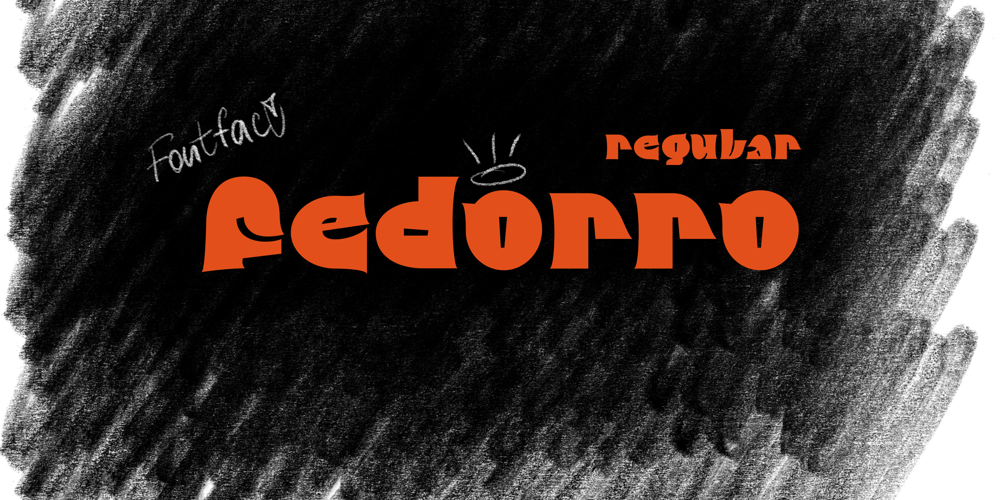
Fedorro Font Family was designed by Leeza Chepugova and published by Leeza Chepugova. Fedorro contains 1 styles and family package options. We are proud to present to you our new Latin+Cyrillic font Fedorro!Fedorro typeface is a classy example of a modern Ukrainian style of type design. It is inspired by traditional fonts of the past, but with a strong modern twist to its appearance.The main feature of this font are round and playful letters combined with a relatively tiny negative space, making it unique like no other: many typeface elements were borrowed from historical exemplars of Ukrainian handwritten letters and redesigned with modern trends in mind.Fedorro is perfect for all the situations when you need the text to pop and catch the viewer’s eye: posters, books and magazine covers, headlines, banners and ads, logotypes, corporate branding, lables, ads etc.